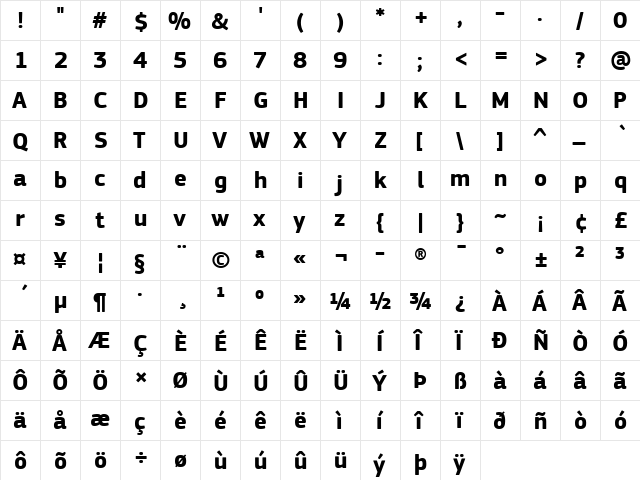
PF Square Sans Pro Bold
Bold · Parachute蠗orldwide Panos Vassiliou ·
Foundry Parachute蠗orldwide
DesignerPanos Vassiliou
Design Context for PF Square Sans Pro Typeface
PF Square Sans Pro offers clean, dependable letterforms without strong stylistic allegiance, making it a practical choice for designers who need flexibility. Its bold stroke weight gives it real presence on the page.